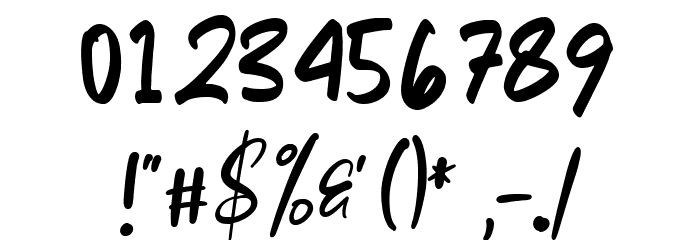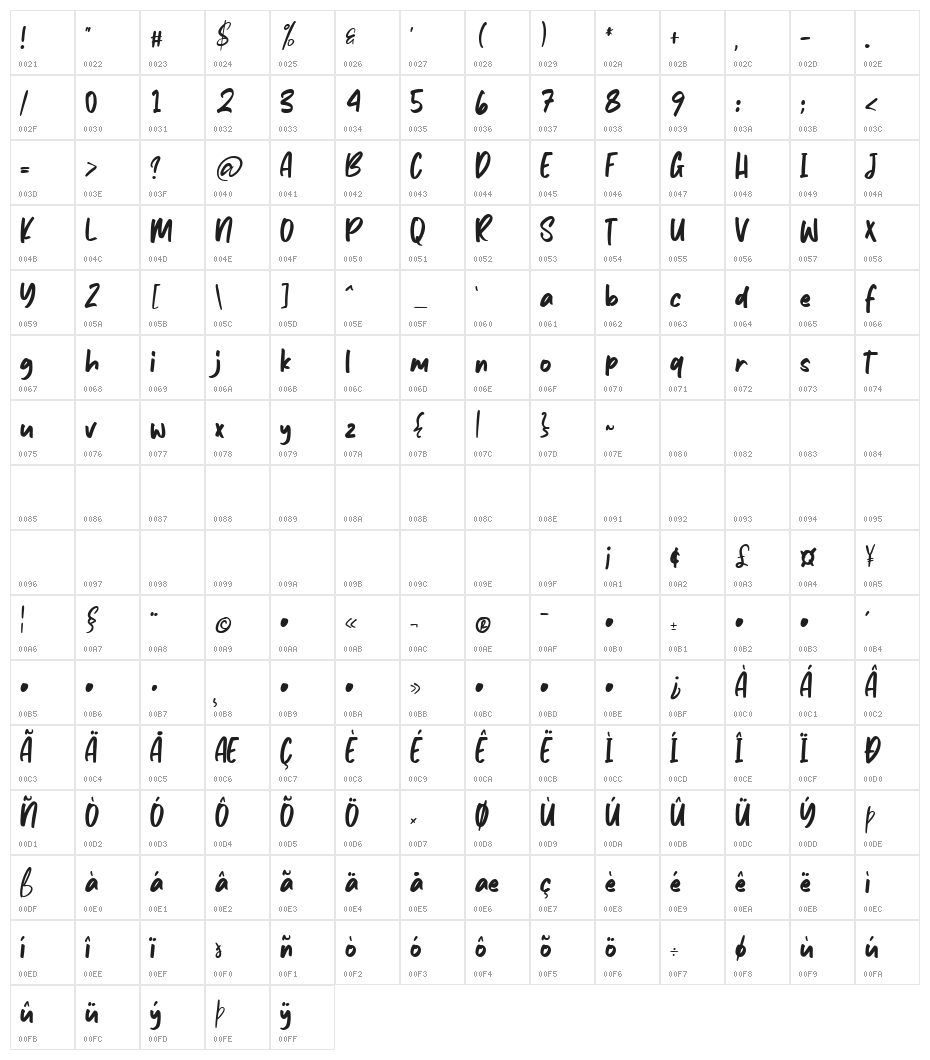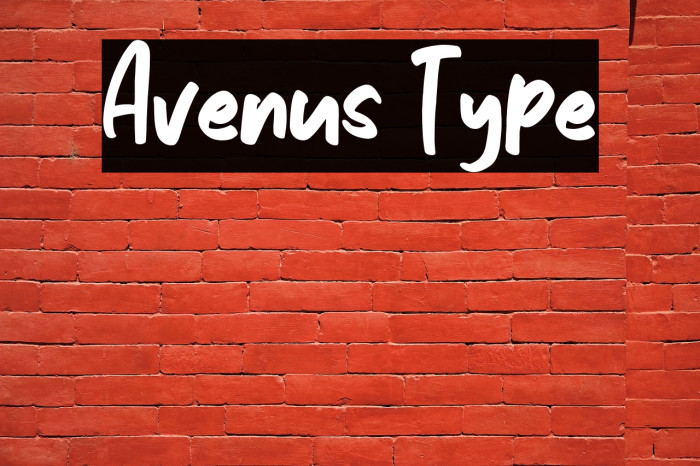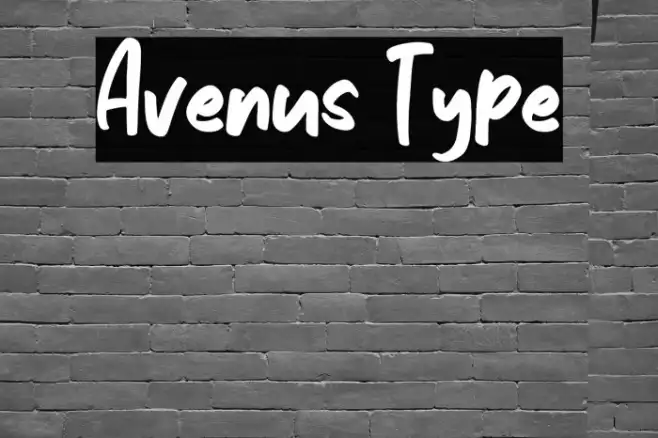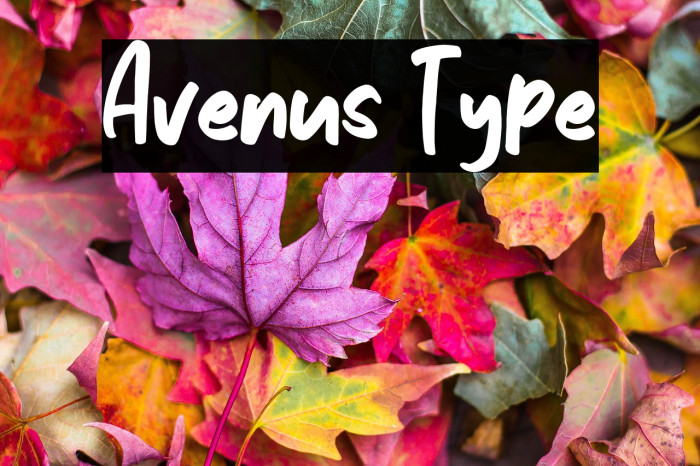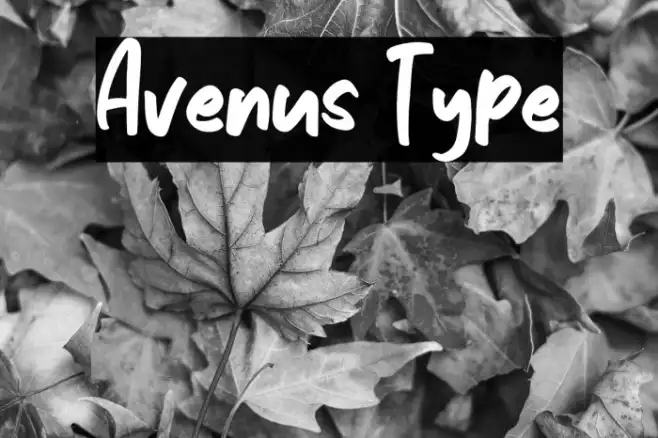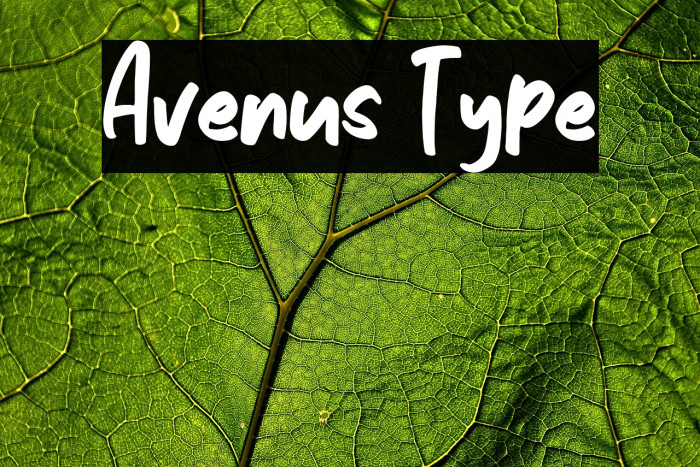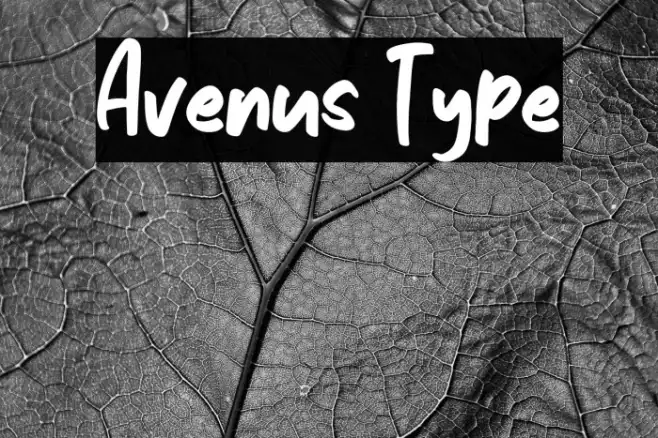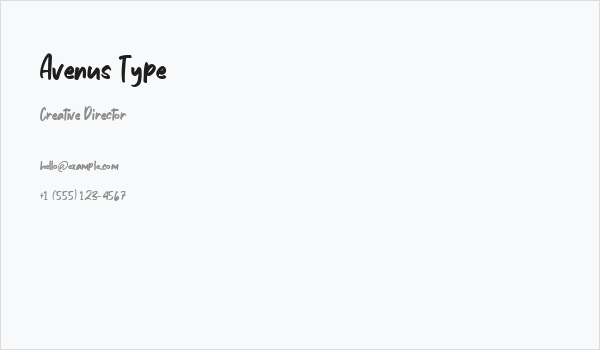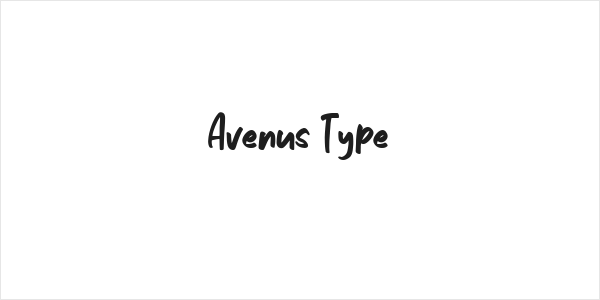
Avenus Type Font
Avenus Type Description
This font features a bold, handwritten style with a playful and energetic appearance. The letters are slightly slanted, giving a dynamic and informal feel. The strokes are thick and consistent, providing a strong presence on the page. The uppercase and lowercase letters maintain a cohesive look, with rounded edges and smooth curves. Numbers and special characters follow the same stylistic approach, ensuring uniformity across all elements. This font is ideal for projects that require a personal touch or a casual, friendly vibe.
| Use Case | Headlines, Logos, Social Media |
| Proposed Projects | Great for greeting cards, social media graphics, posters, and branding materials that aim for a personal and approachable tone. |